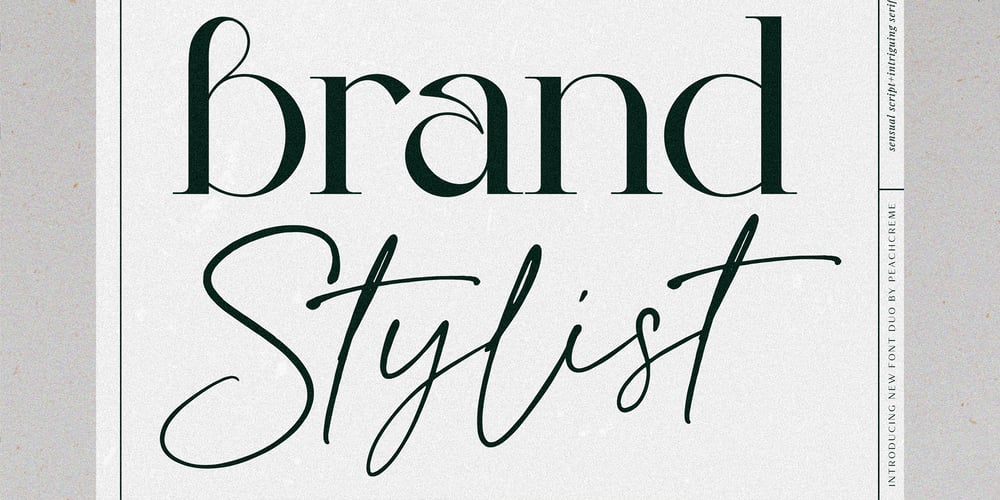
Brand Stylist Font Family was designed by Gulya Yeap and published by PeachCreme. Brand Stylist contains 2 styles and family package options. Looking for perfectly paired branding fonts? Check out our new baby “brand stylist”. Not boring display font combined with a sassy script font can become your casual logo designing font.If you have questions, just send us a message and we’re happy to help:)Happy designing, Gulya